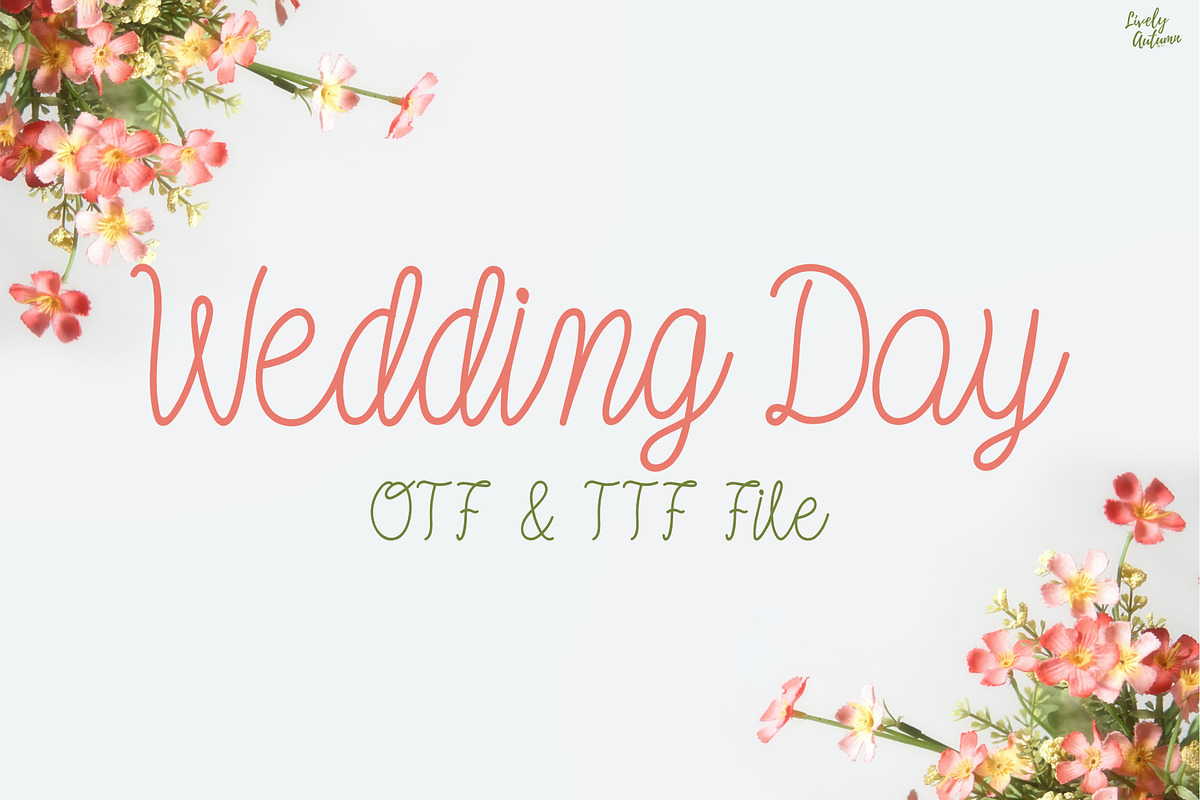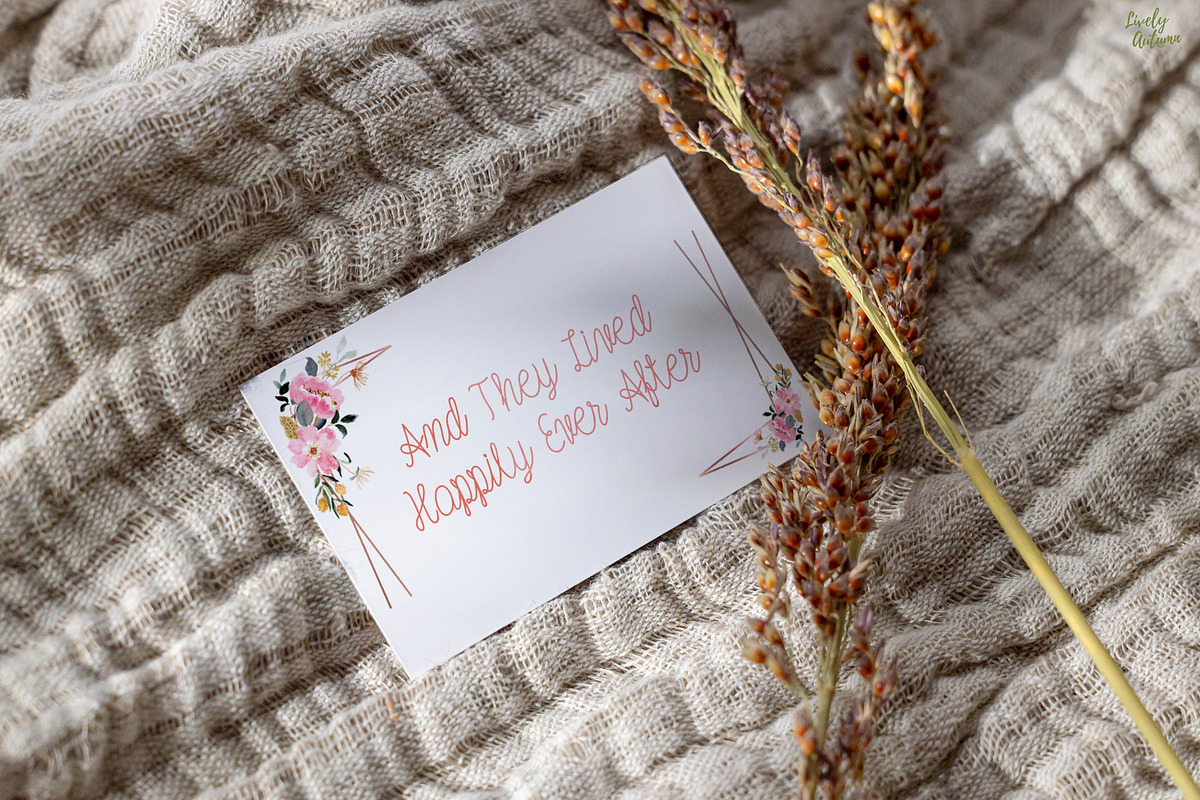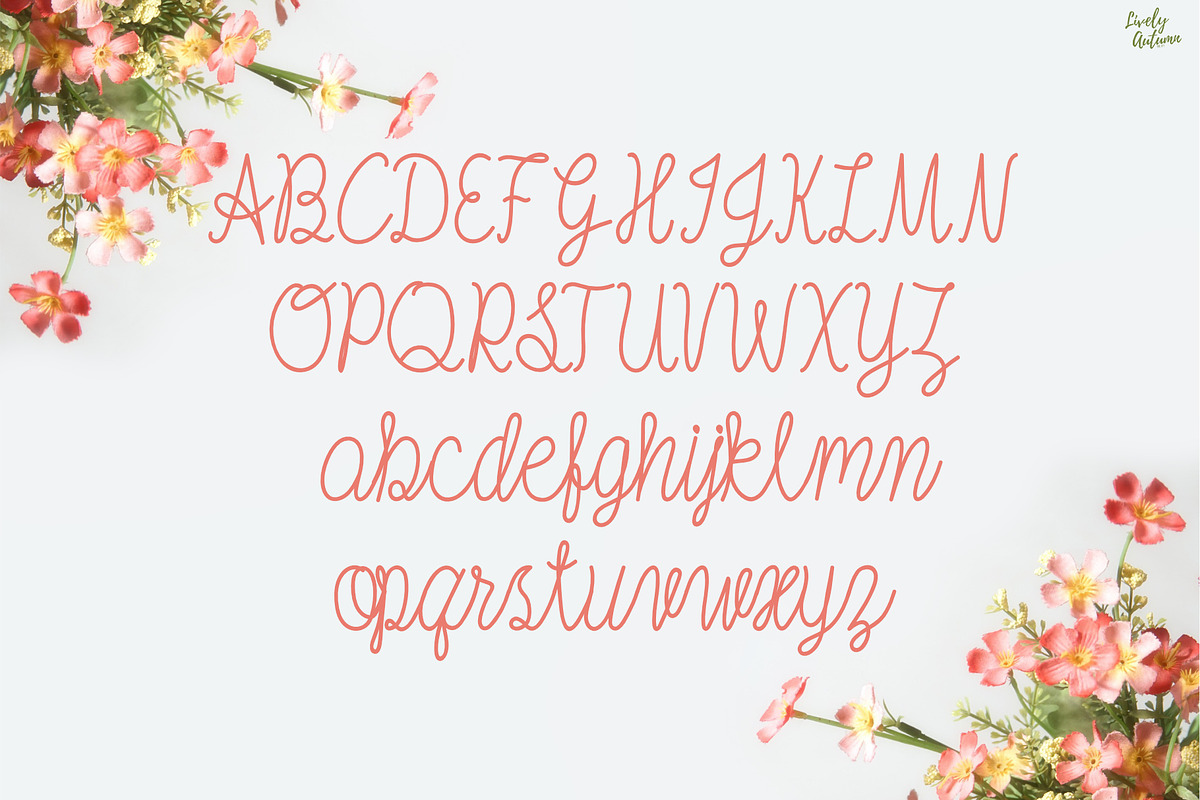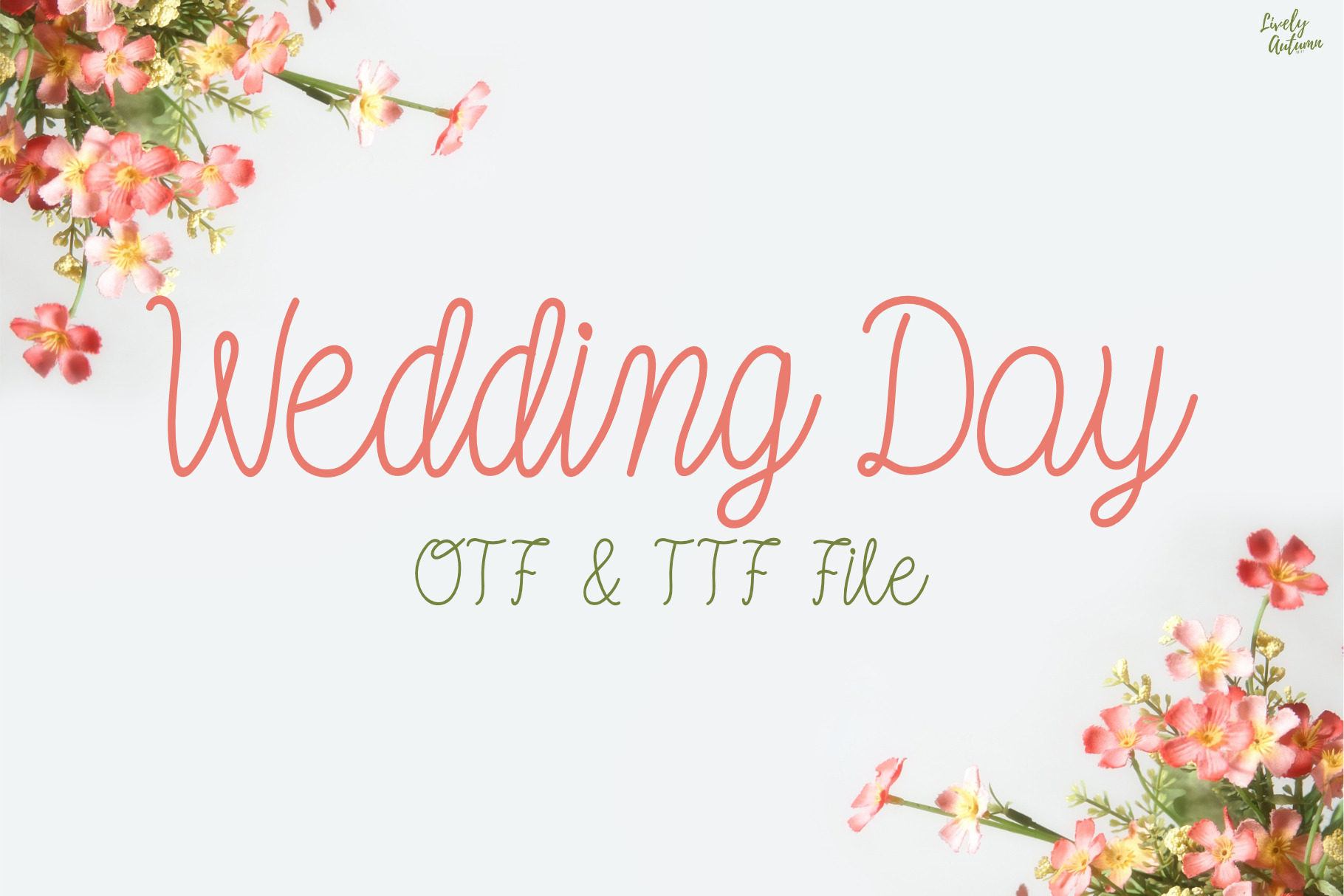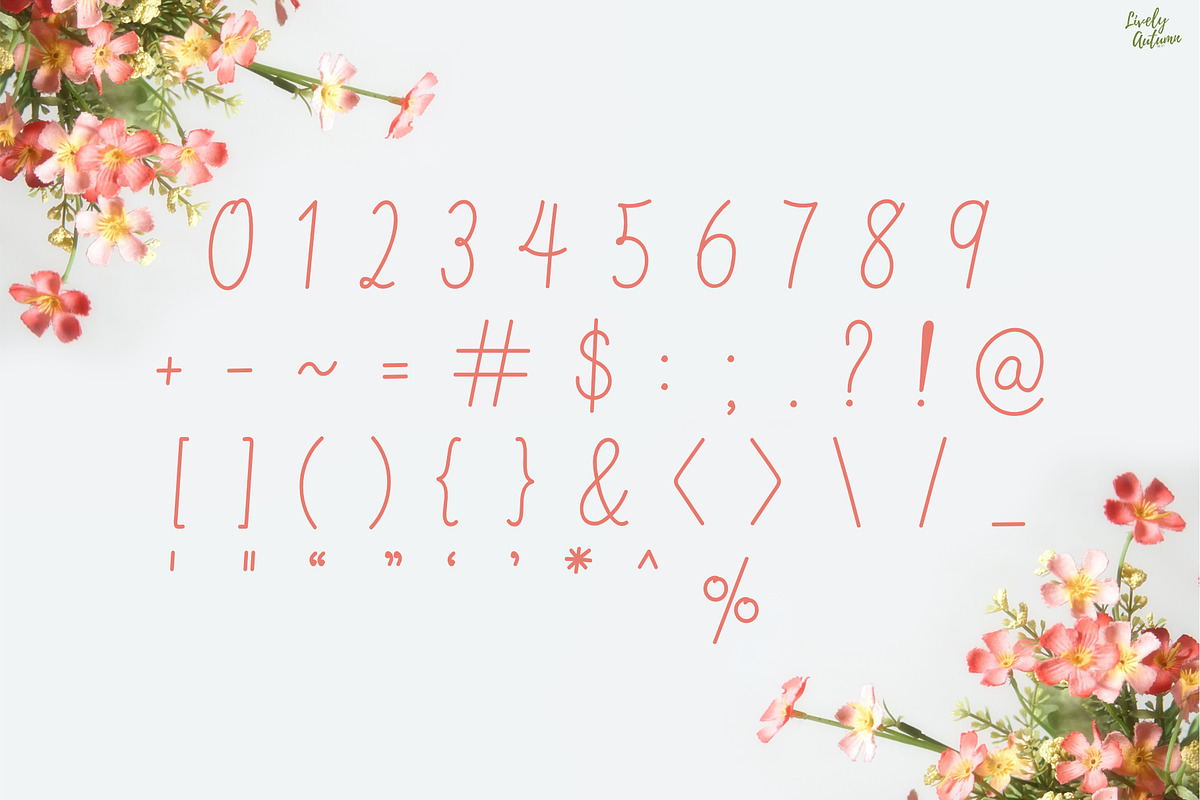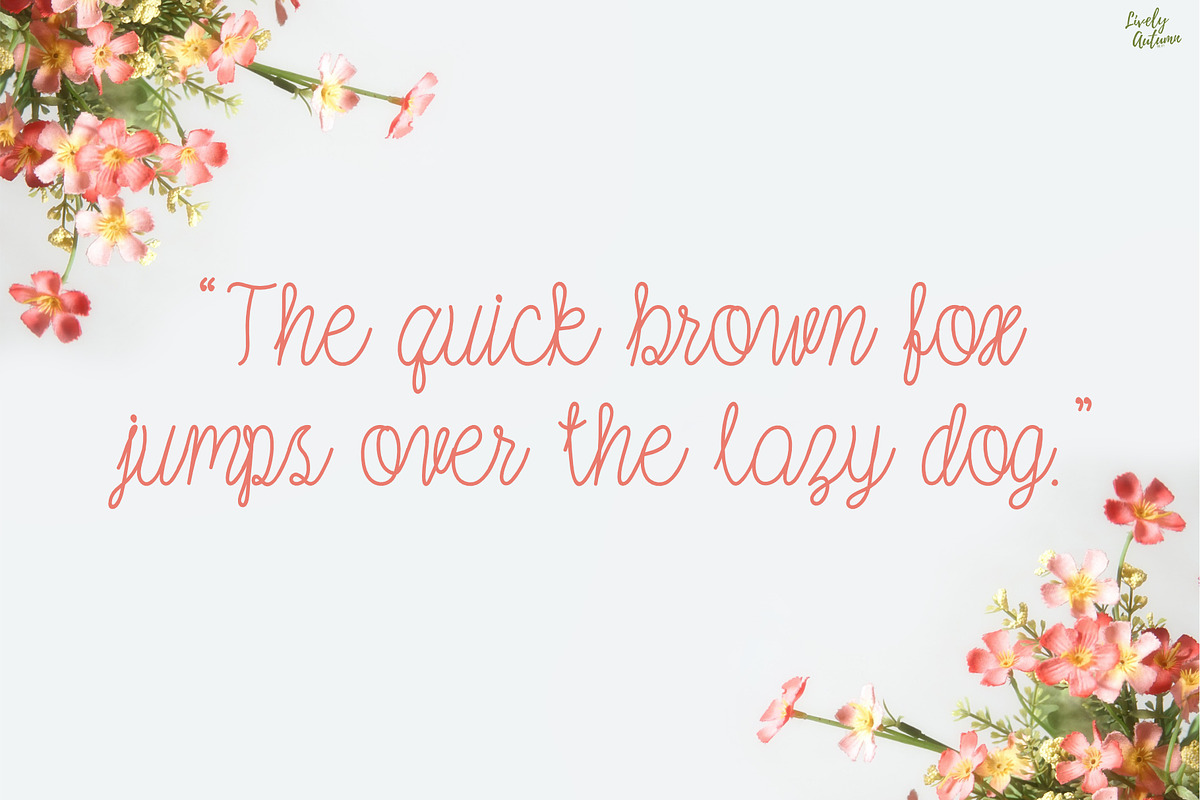
Wedding Day | Cursive Font
Wedding Day Font is a cursive handwriting font. Perfect for your personal projects and various project. From invitations to posters, social media graphics, journals, greeting cards, and much more.
- Font includes: uppercase, lowercase, numbers, and punctuation